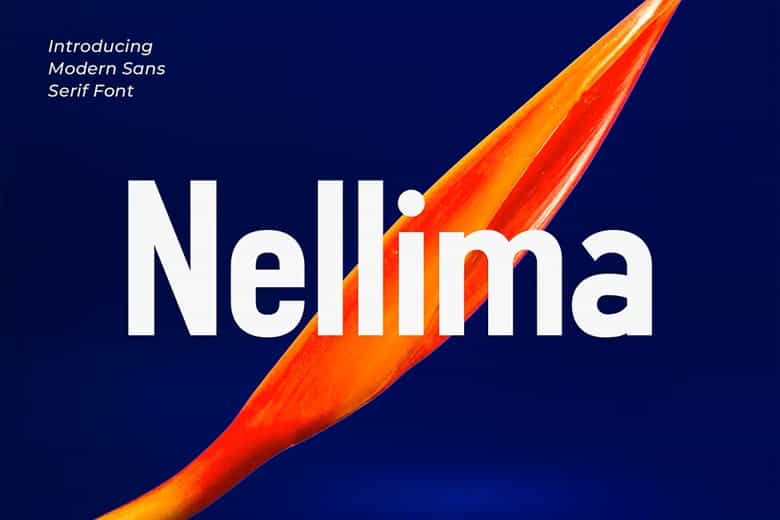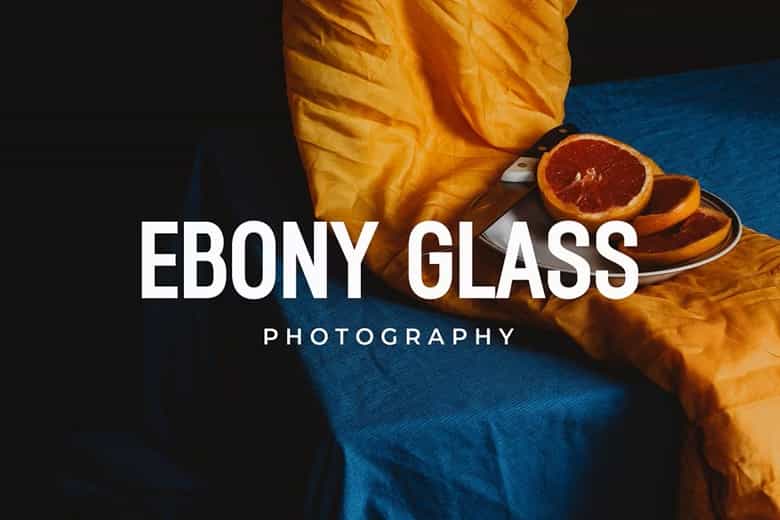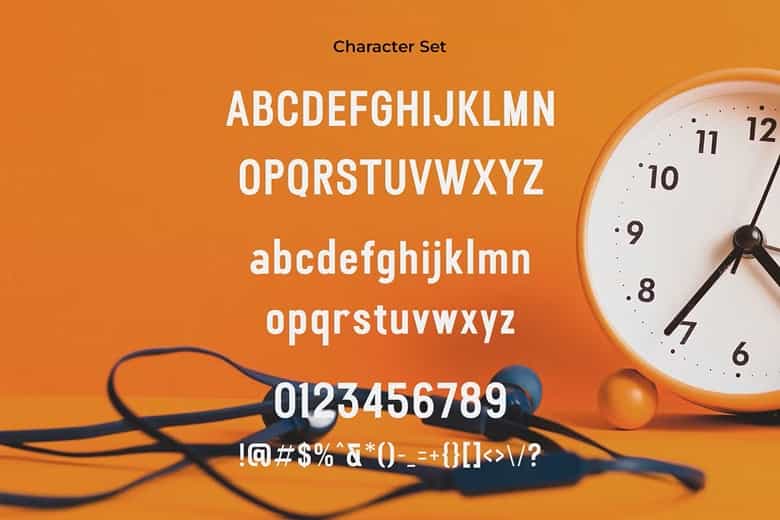
Nellima is a beautiful and daring sans serif typeface, that has been designed to provide your headline and logotype undertakings with a classy feel. Being strong, confident, and dynamic also, this font can even be used to add tons of retrospective character to anything that you design.